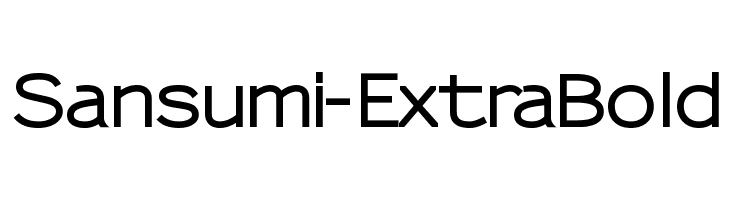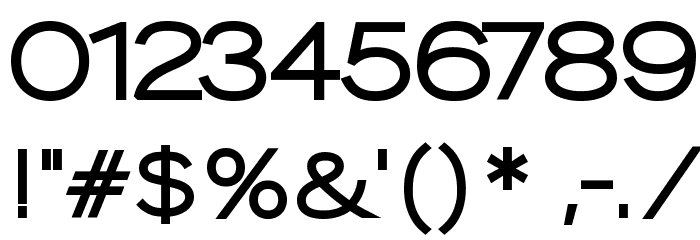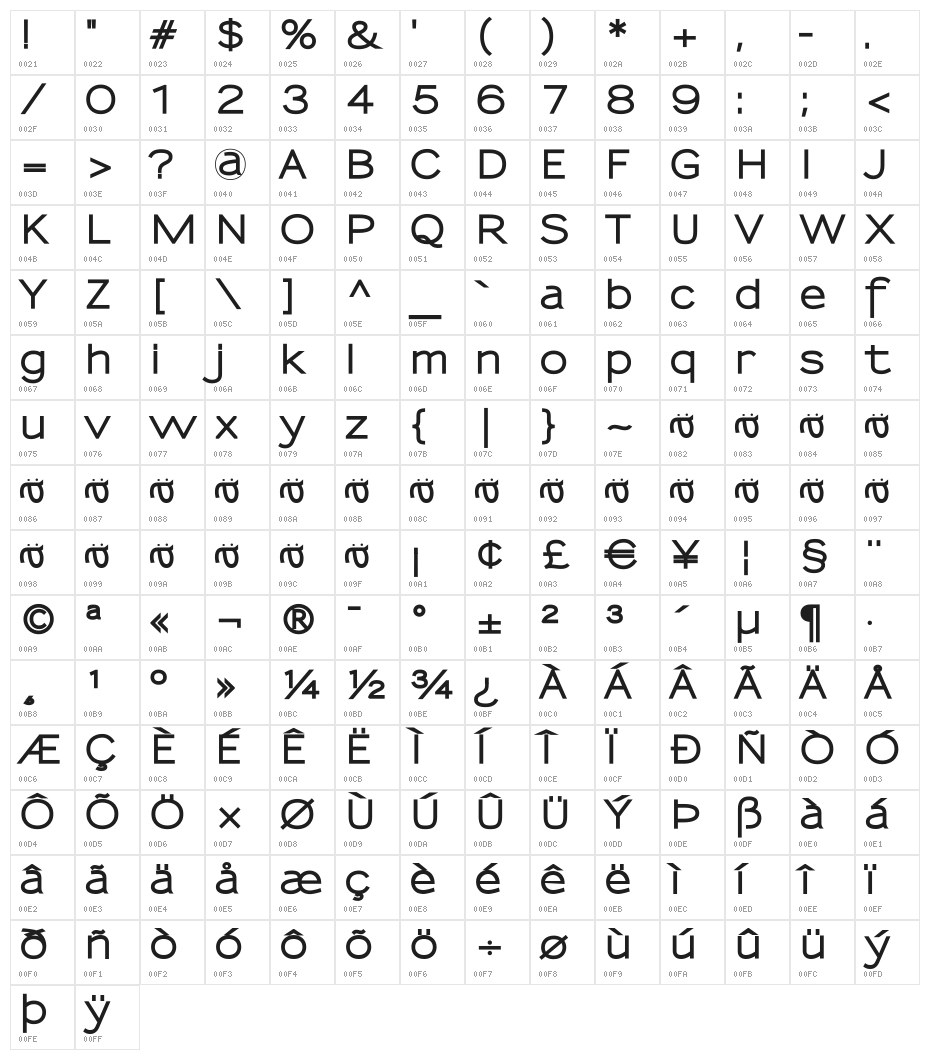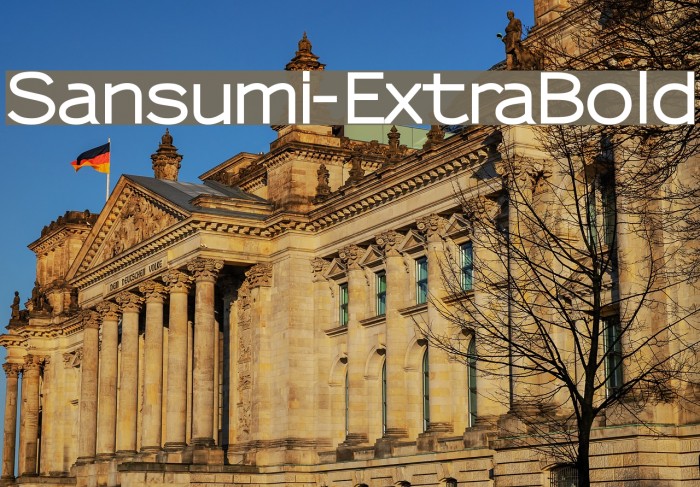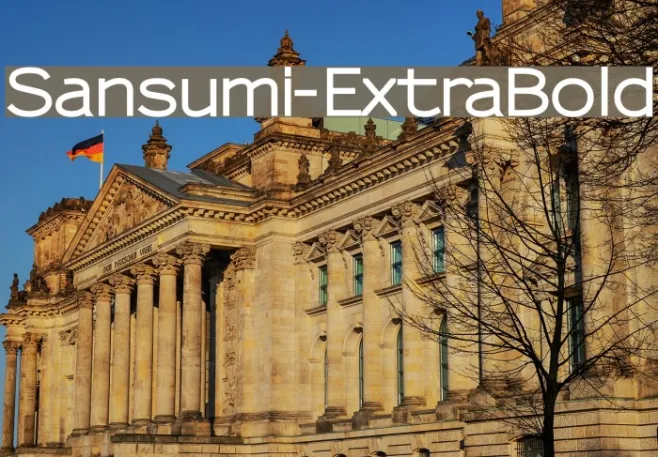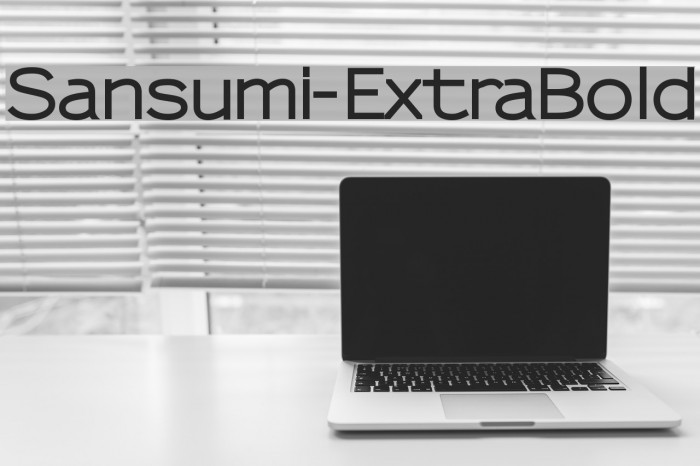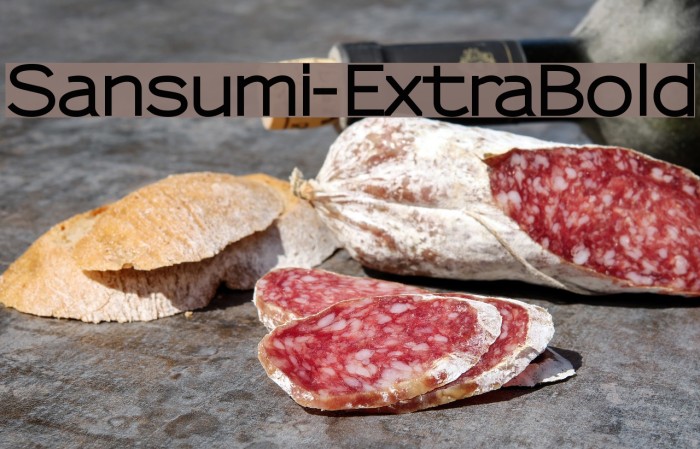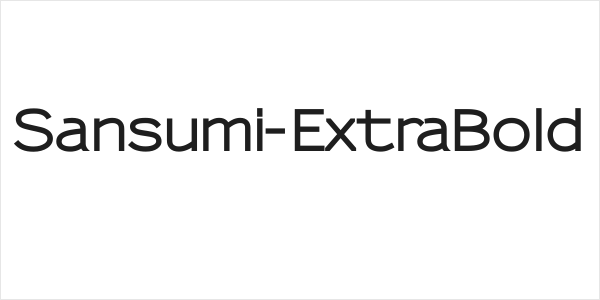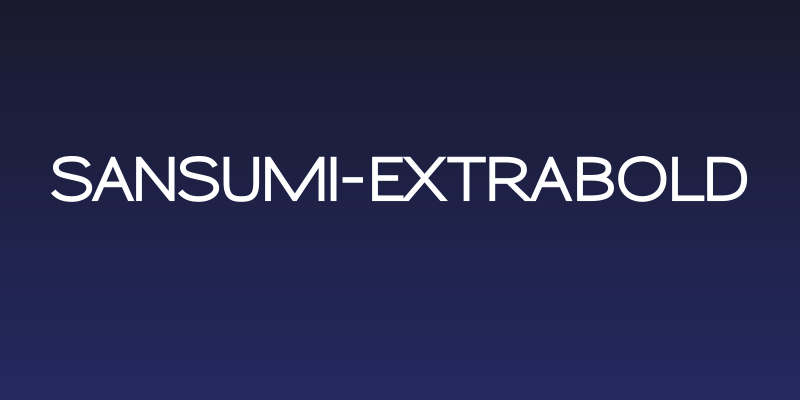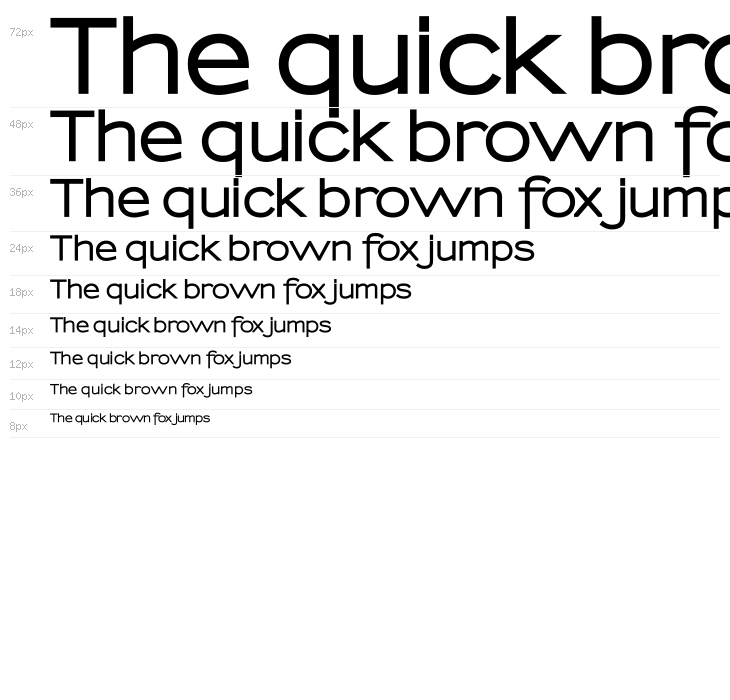
Sansumi-ExtraBold Font
Sansumi-ExtraBold Description
This font exhibits a clean and modern sans-serif style with a strong geometric influence. The characters are bold and uniform, providing a sense of stability and clarity. The uppercase and lowercase letters maintain a consistent height and width, contributing to a balanced appearance. The numerals are clear and easily distinguishable, making them suitable for various applications. The special characters are well-integrated, maintaining the overall aesthetic of the font. Its simplicity and boldness make it ideal for impactful designs.
| Use Case | Headlines, Logos, Digital Interfaces |
| Proposed Projects | Ideal for branding, advertising, headlines, and digital interfaces where clarity and impact are essential. |